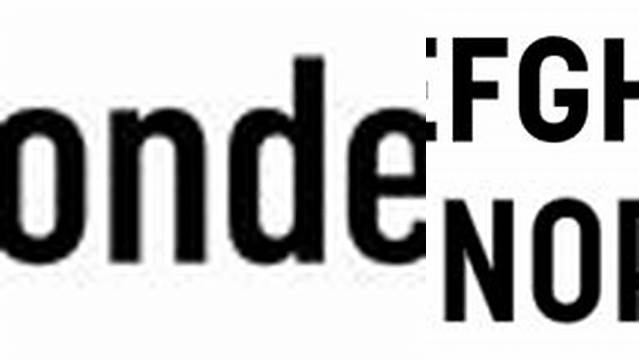
Are you on the hunt for a font that exudes modernity, strength, and a touch of uniqueness? Well, look no further, guys! The Korolev Condensed Alternates Bold font might just be the typographical gem you've been searching for. This versatile typeface is perfect for a wide array of design projects, ranging from eye-catching headlines to sleek branding materials. In this in-depth guide, we'll explore everything you need to know about this fantastic font, including its key features, ideal use cases, and, of course, how to get your hands on it for free (or at least explore your options!).
What Makes Korolev Condensed Alternates Bold So Special?
First off, let's break down what makes the Korolev Condensed Alternates Bold font a standout choice for designers. The term "condensed" indicates that the font has a narrower width compared to regular fonts, which makes it excellent for situations where space is at a premium. Think of newspaper headlines, posters with limited space, or even website navigation menus. The "Alternates" part means that the font includes alternative glyphs (characters) that offer different stylistic options. These alternates can add flair and personality to your designs, allowing you to create something truly unique. And finally, "Bold" signifies a heavier weight, ensuring that your text commands attention. This boldness is perfect for headlines, titles, and any text that needs to make a strong impact.
Korolev itself often suggests a certain aesthetic – one that leans towards modern, geometric, and sometimes even slightly futuristic designs. This font family often carries a sense of strength and sophistication, making it suitable for projects that aim to convey those qualities. When all these elements – condensed, alternates, bold, and the Korolev aesthetic – come together, you get a typeface that is both functional and visually striking.
Essentially, Korolev Condensed Alternates Bold offers a unique blend of space-saving efficiency, stylistic versatility, and impactful presence. It's a font that doesn't just display text; it communicates a message with clarity and style. Whether you're designing a cutting-edge website, a bold advertising campaign, or a sleek corporate brochure, this font can be a valuable asset in your typographic toolkit.
Key Features of Korolev Condensed Alternates Bold
When diving into the specifics of the Korolev Condensed Alternates Bold font, there are several key features that set it apart and make it a compelling choice for various design applications. Understanding these features will help you appreciate its versatility and how it can enhance your projects.
- Condensed Width: As mentioned earlier, the condensed nature of this font is a major advantage. It allows you to fit more text into a smaller space without sacrificing readability. This is particularly useful in designs where space is limited, such as headlines, posters, and website navigation menus. The narrower width also gives it a sleek and modern appearance.
- Bold Weight: The bold weight of the font ensures that your text stands out and commands attention. It's perfect for headlines, titles, and any text that needs to make a strong visual impact. The boldness adds a sense of authority and confidence to your message.
- Alternate Glyphs: The inclusion of alternate glyphs provides designers with a range of stylistic options. These alternates can be used to add flair and personality to your designs, creating a unique and customized look. You might find alternate versions of certain letters or numbers that offer different shapes or embellishments. This allows you to fine-tune your typography and create a distinctive visual identity.
- Geometric Design: Korolev fonts often feature a geometric design, characterized by clean lines, sharp angles, and a sense of precision. This gives the font a modern and sophisticated appearance, making it suitable for a wide range of design projects. The geometric shapes contribute to its overall clarity and legibility.
- Versatility: One of the most appealing aspects of Korolev Condensed Alternates Bold is its versatility. It can be used in a variety of design contexts, from print to digital. It works well for headlines, body text, logos, branding materials, and more. Its adaptability makes it a valuable asset in any designer's toolkit.
- Readability: Despite its condensed width and bold weight, Korolev Condensed Alternates Bold maintains excellent readability. The clean lines and geometric shapes ensure that the text is easy to read, even at smaller sizes. This is crucial for ensuring that your message is effectively communicated to your audience.
By understanding these key features, you can better appreciate the unique qualities of Korolev Condensed Alternates Bold and how it can be used to enhance your design projects. Whether you're creating a bold headline, a sleek logo, or a modern website, this font offers a compelling combination of style and functionality.
Ideal Use Cases for Korolev Condensed Alternates Bold
The Korolev Condensed Alternates Bold font isn't just a pretty face; it's a workhorse that can be applied effectively across a multitude of design scenarios. Knowing where this font truly shines will help you leverage its strengths and maximize its impact.
The Korolev Condensed Alternates Bold font is undoubtedly a powerful and versatile typeface that can elevate your design projects. Its condensed width, bold weight, and alternate glyphs make it a standout choice for headlines, branding, advertising, and more. While finding a free download might require some effort, the font's unique qualities make it well worth the search. And if you can't find it for free, there are plenty of excellent alternatives that can capture a similar aesthetic. So go forth, explore the world of typography, and unleash your creative potential!